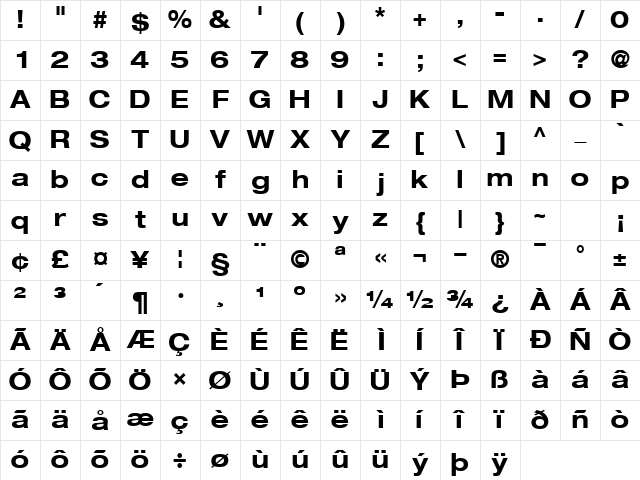
ContextRepriseExpandedSSK Bold Free Font
ContextRepriseExpandedSSK Bold
Design Context for ContextRepriseExpandedSSK
ContextRepriseExpandedSSK is a composed and adaptable typeface that performs quietly and consistently across a wide range of design contexts. Its bold stroke weight gives it real presence on the page.